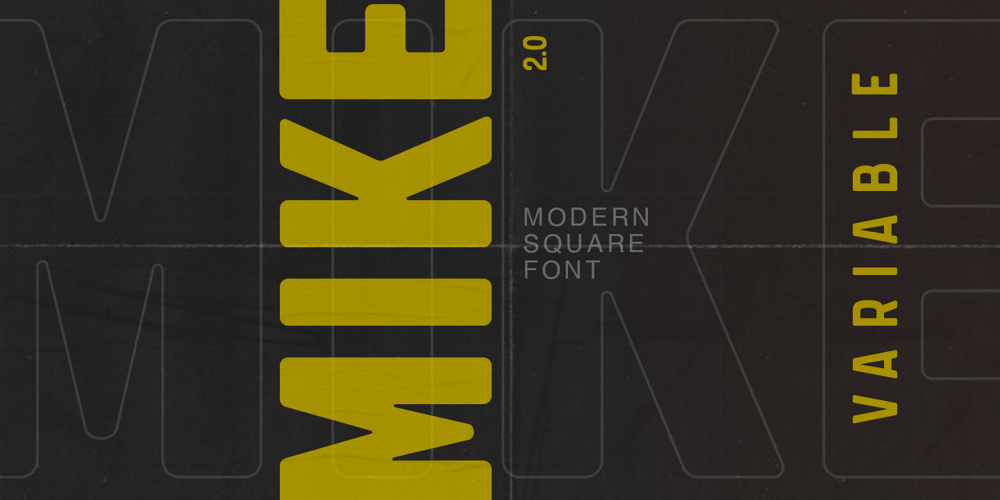
Mike Variable
Mike Variable font
Mike Variable Font Family was designed by Wahyu Rahmawan and published by Factory738. Mike Variable contains 1 styles and family package options. Mike Sans is a contemporary sans serif font with a square design that enhances versatility through clean, modern glyphs. It features variable weight with unlimited options, making it ideal for a wide range of display applications.Thanks for looking, and I hope you enjoy it.